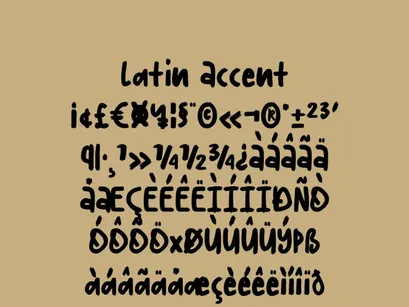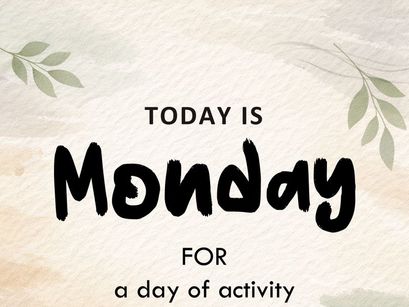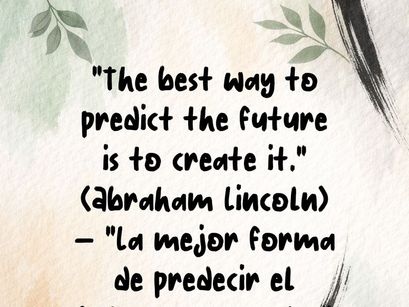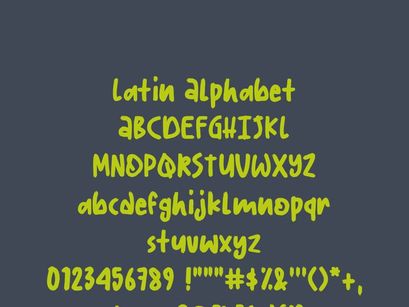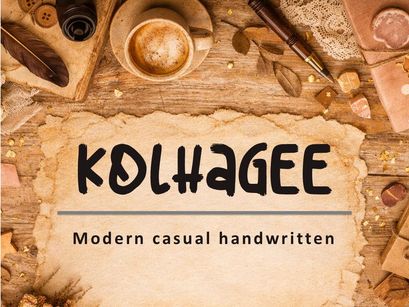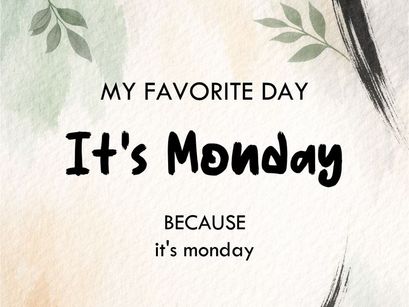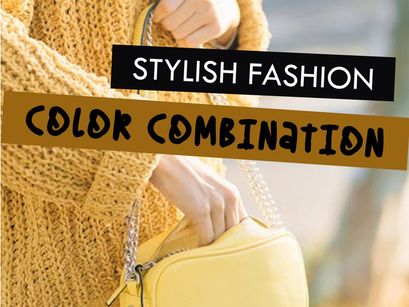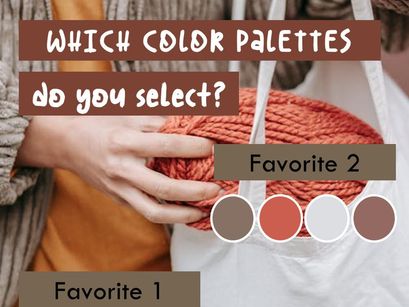
Discover KOLHAGEE, a modern, casual, handwritten typeface that conveys warmth, creativity, and artisanal style.
Its natural and balanced strokes make it perfect for branding, inspirational quotes, packaging, planners, and social media posts.
It includes TTF and OTF formats, with support for Latin accents and special characters, ideal for multilingual projects.
Style: Modern casual handwritten
Fluid and expressive letters with a natural rhythm
Compatible with Latin accents and symbols
Ideal for artisanal design, fashion, lifestyle, and digital content